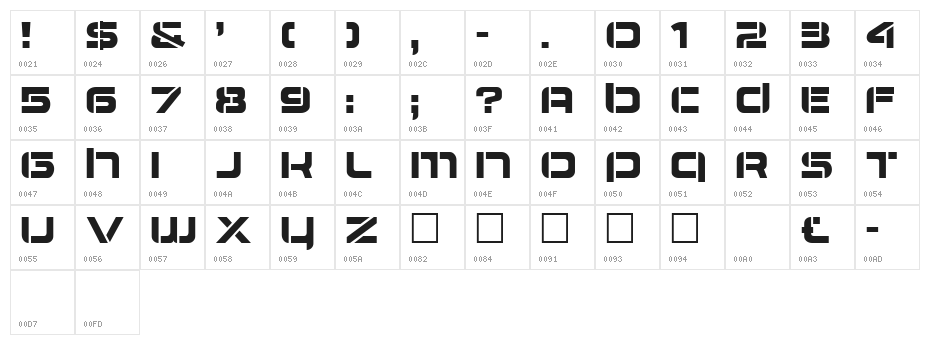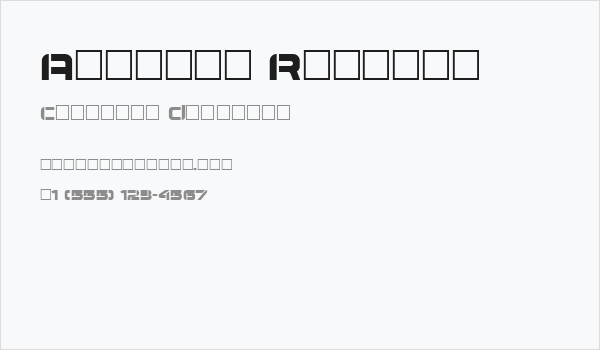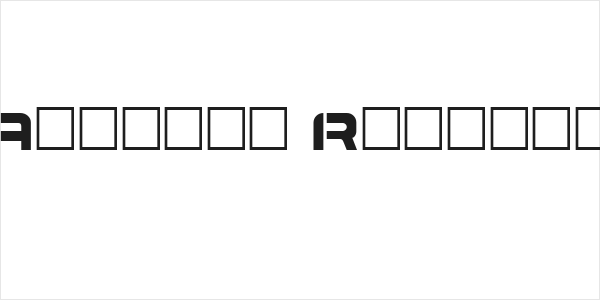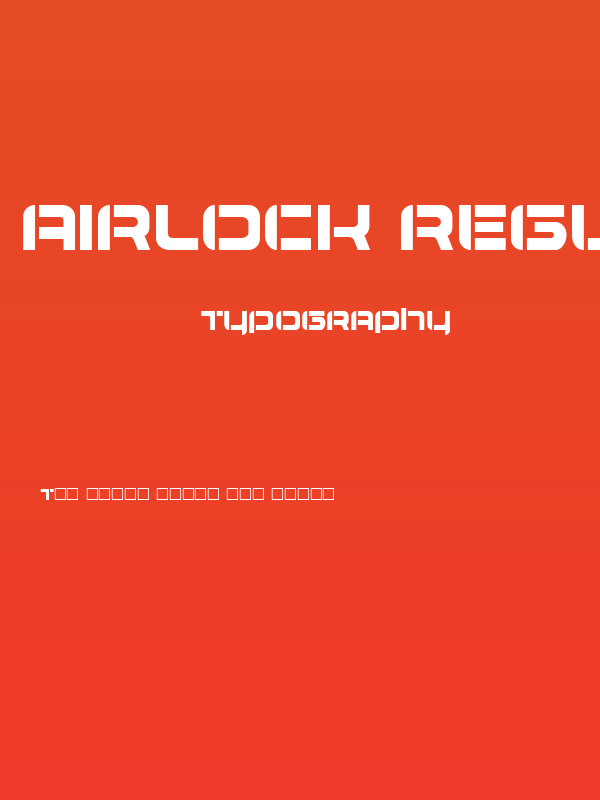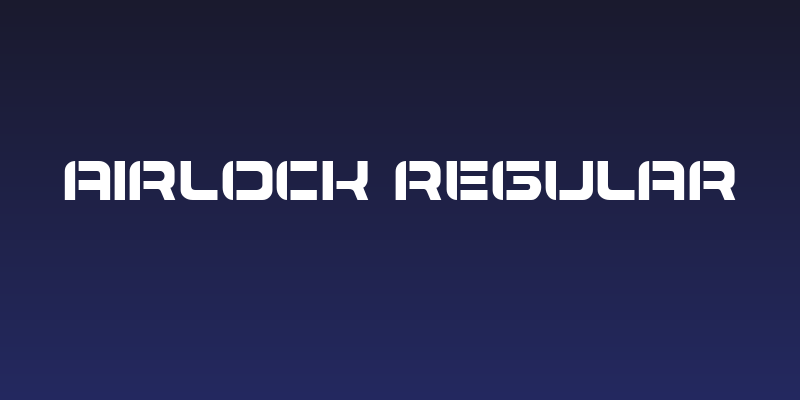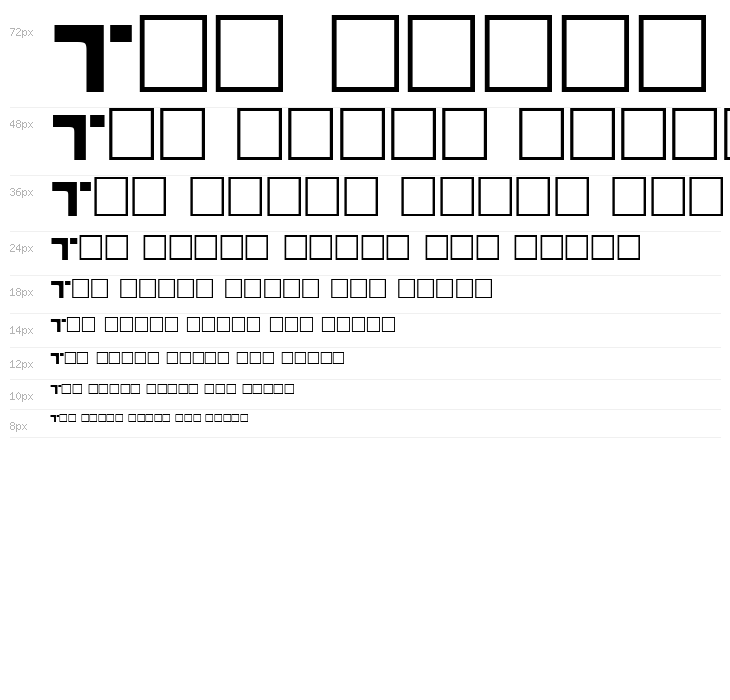
Airlock Regular Font
Airlock Regular Description
This font features a futuristic and geometric design, characterized by bold, block-like letterforms with sharp angles and clean lines. The uppercase letters are uniform in height, creating a cohesive and structured appearance. The lowercase letters mirror this style, maintaining a consistent aesthetic throughout. The numerals are similarly designed, with a strong presence and clear readability. Special characters are integrated seamlessly, adding to the font's versatility. The overall look is modern and tech-inspired, making it suitable for projects that require a contemporary and innovative feel.
| Proposed Projects | Ideal for technology branding, sci-fi themed designs, video game interfaces, and modern advertising. |